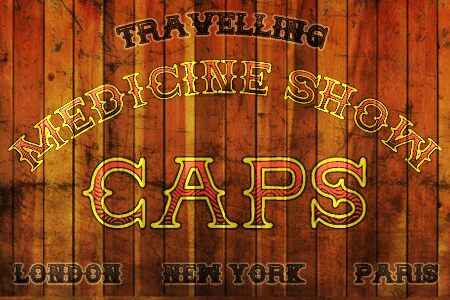
Medicine Show Caps by ANFA is a free Western decorative caps font with the exuberance of nineteenth-century showbill lettering. Diagonal hatching inside layered outlines gives every letter a carved texture.
It can turn a frontier-themed poster into period scenery, yet the striped interiors also suit playful food packaging. Souvenir merchandise gains the same fairground flavor. On magazine covers, the letters can function as illustrated masthead ornaments rather than neutral type.